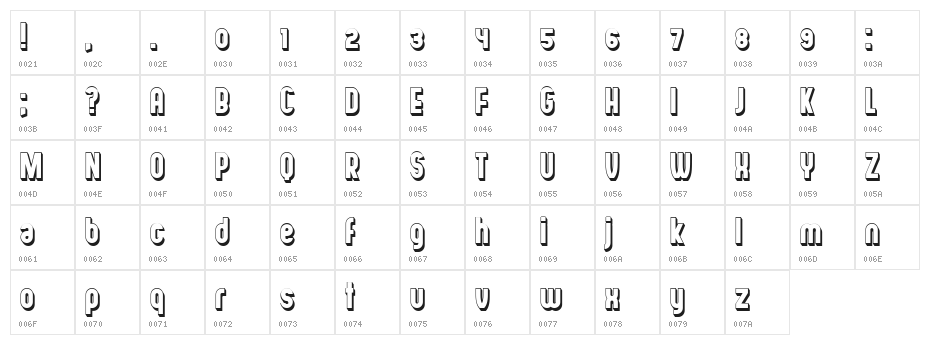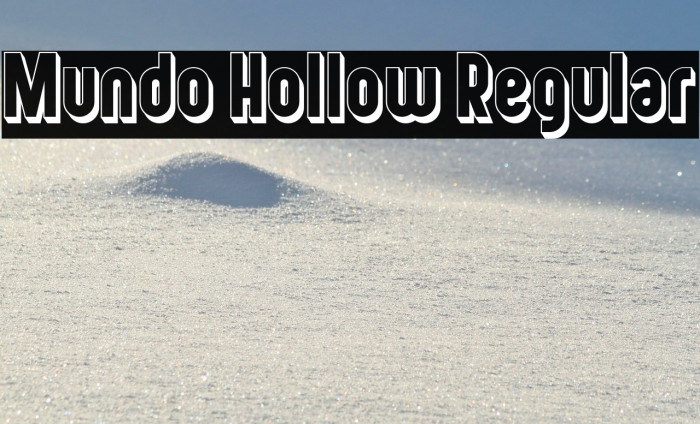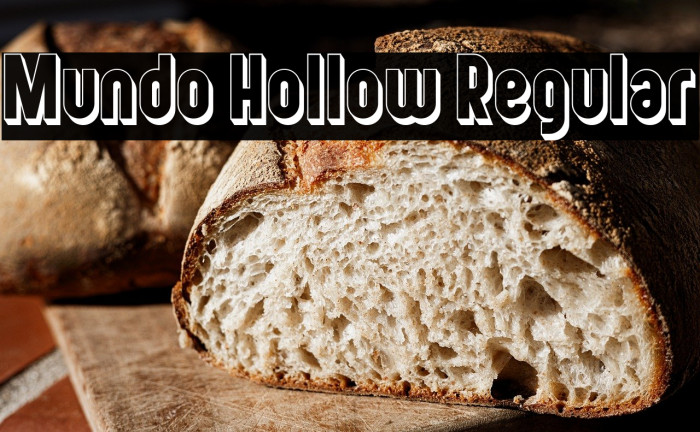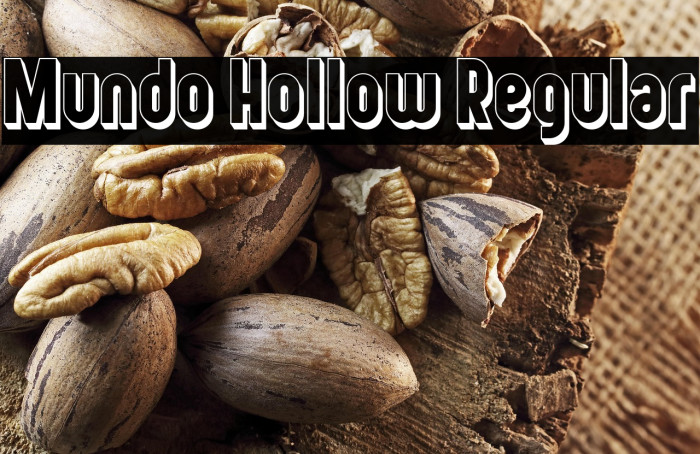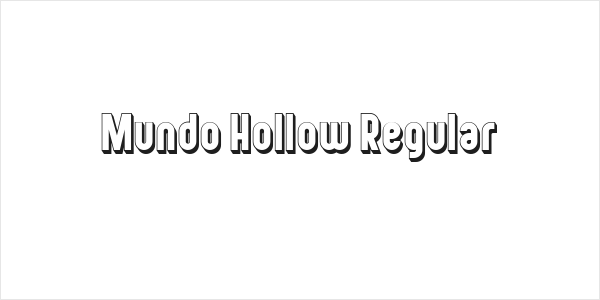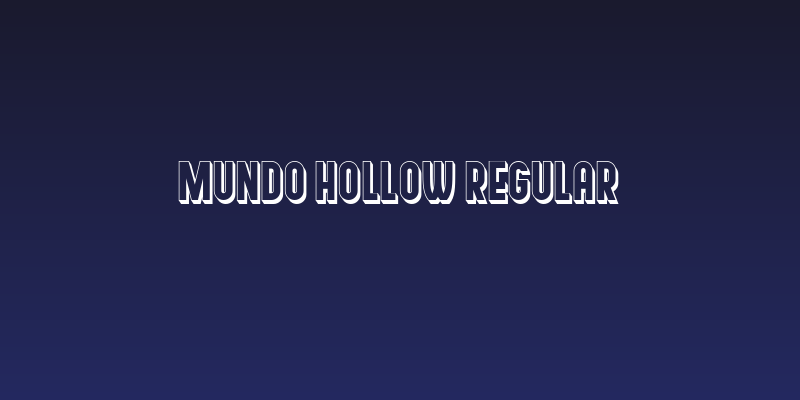
Mundo Hollow Regular Font
Mundo Hollow Regular Description
This font features a bold, hollow design with a strong, three-dimensional appearance. The letters are outlined with a thick black border, creating a striking contrast against the white interior. The uppercase and lowercase characters maintain a consistent style, with geometric shapes and clean lines. The numbers and special characters follow the same design principles, ensuring uniformity across the font. Its boldness and hollow nature make it ideal for eye-catching designs where readability and impact are crucial.
| Proposed Projects | Ideal for posters, headlines, logos, and any design requiring a bold, impactful look. |